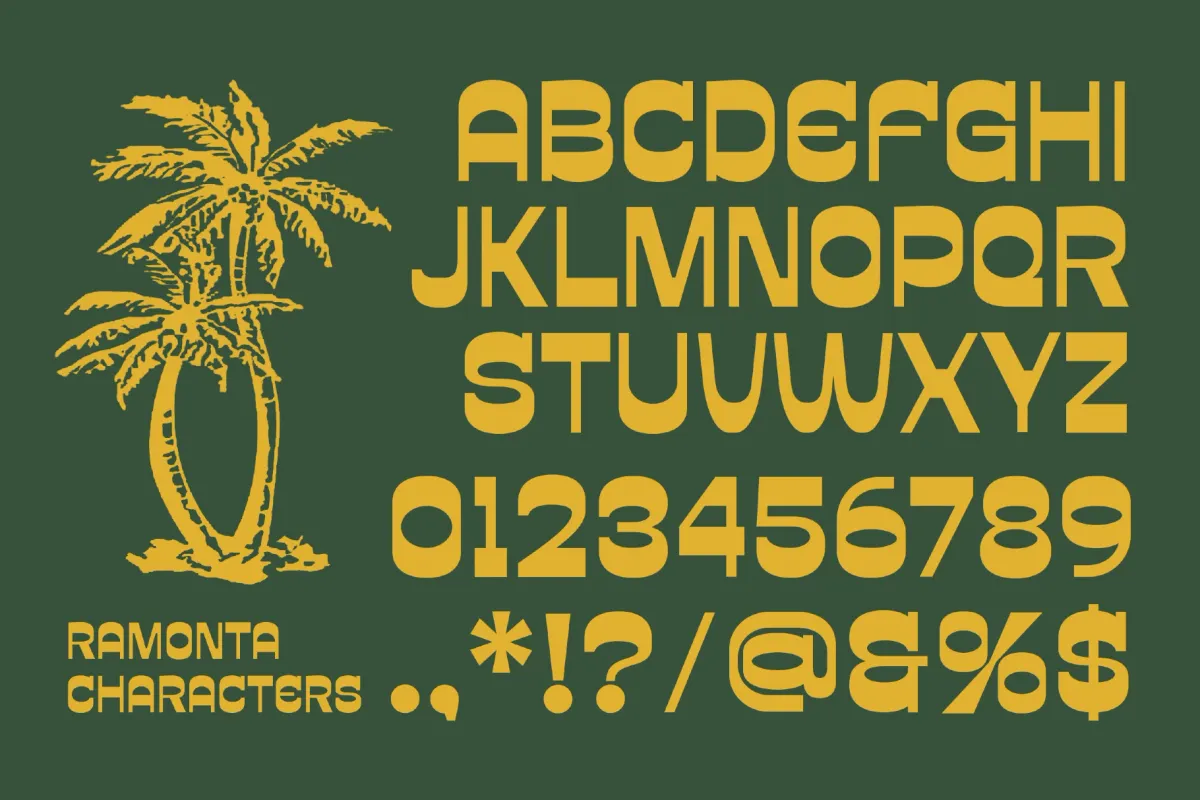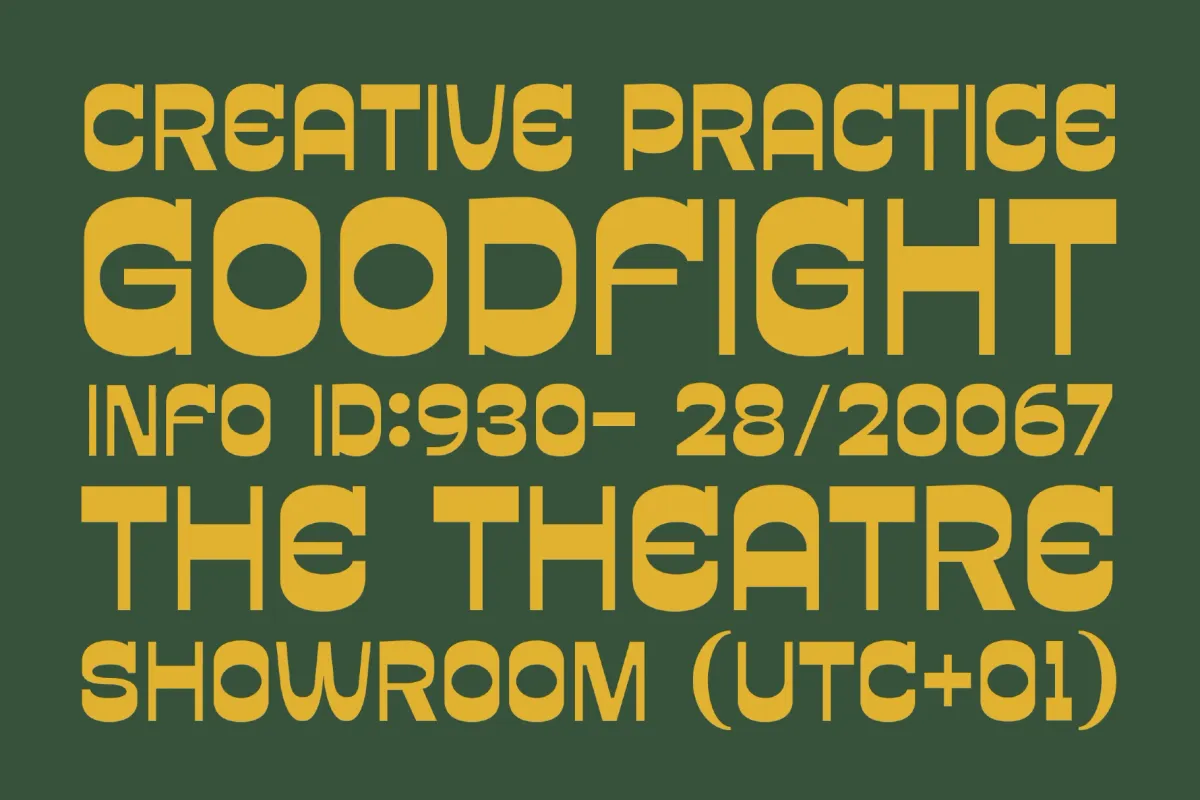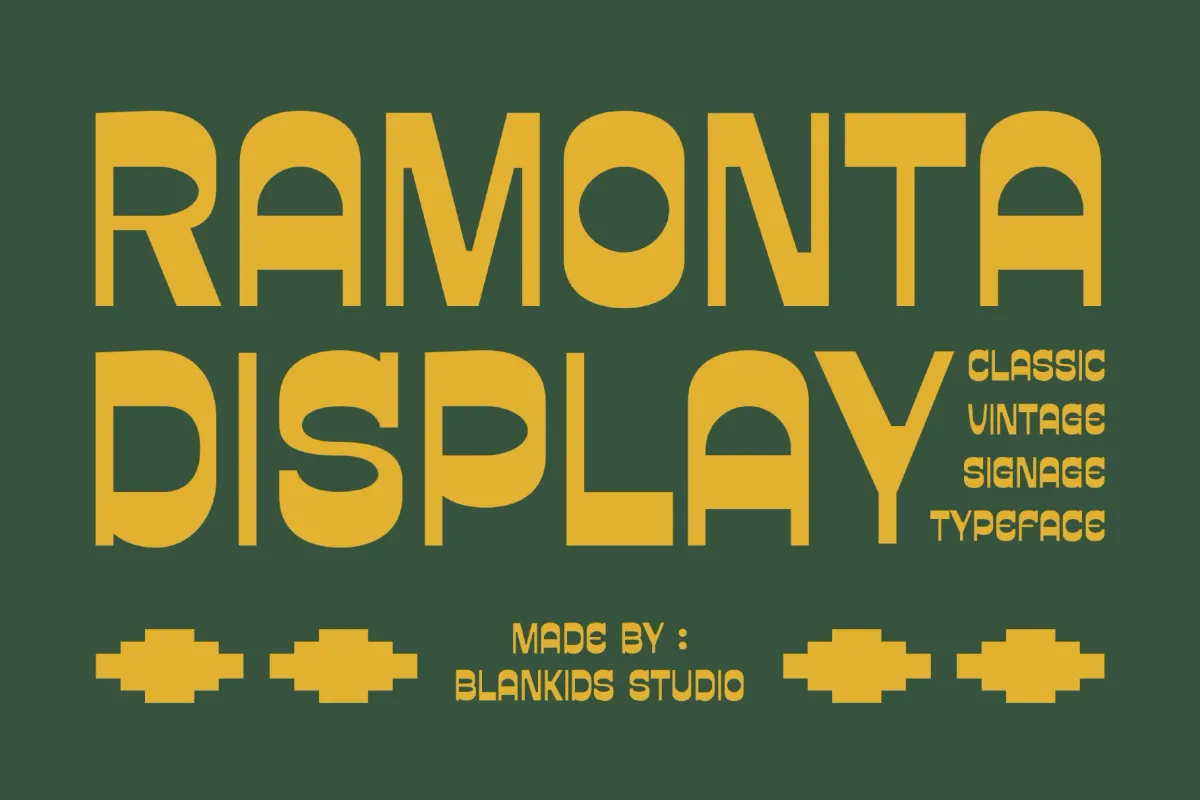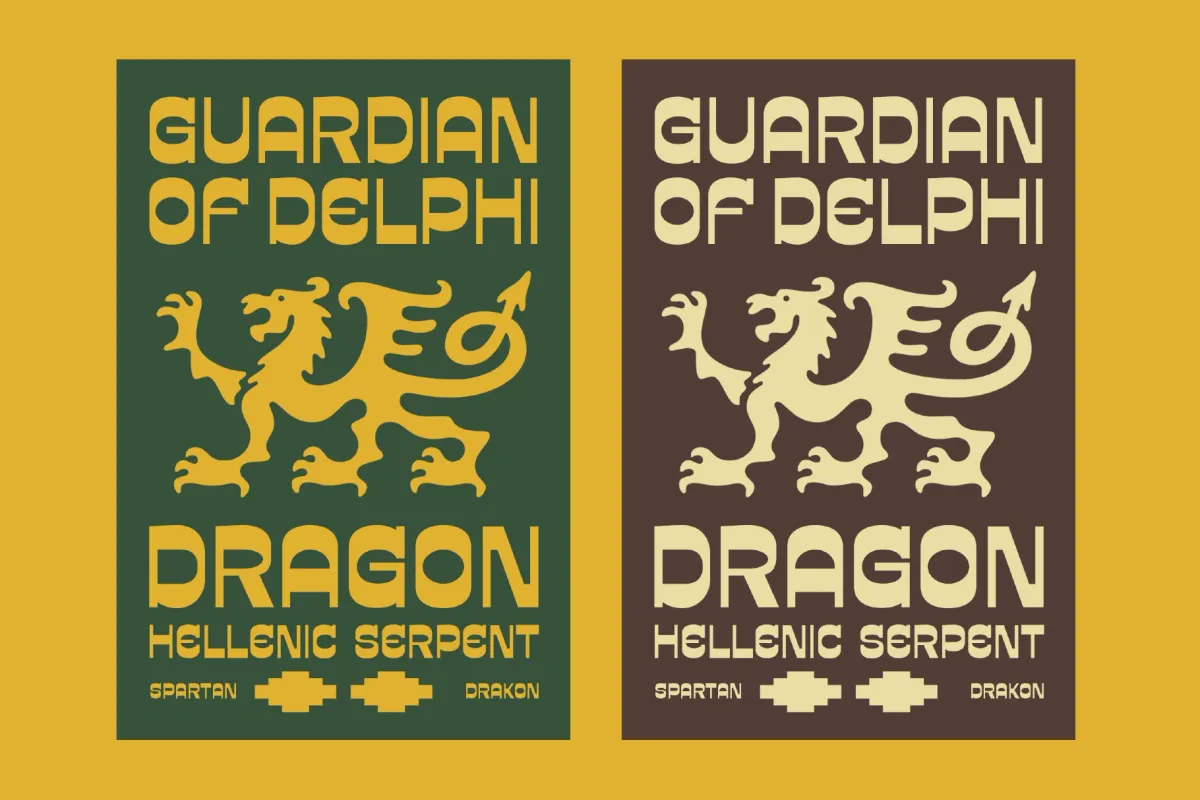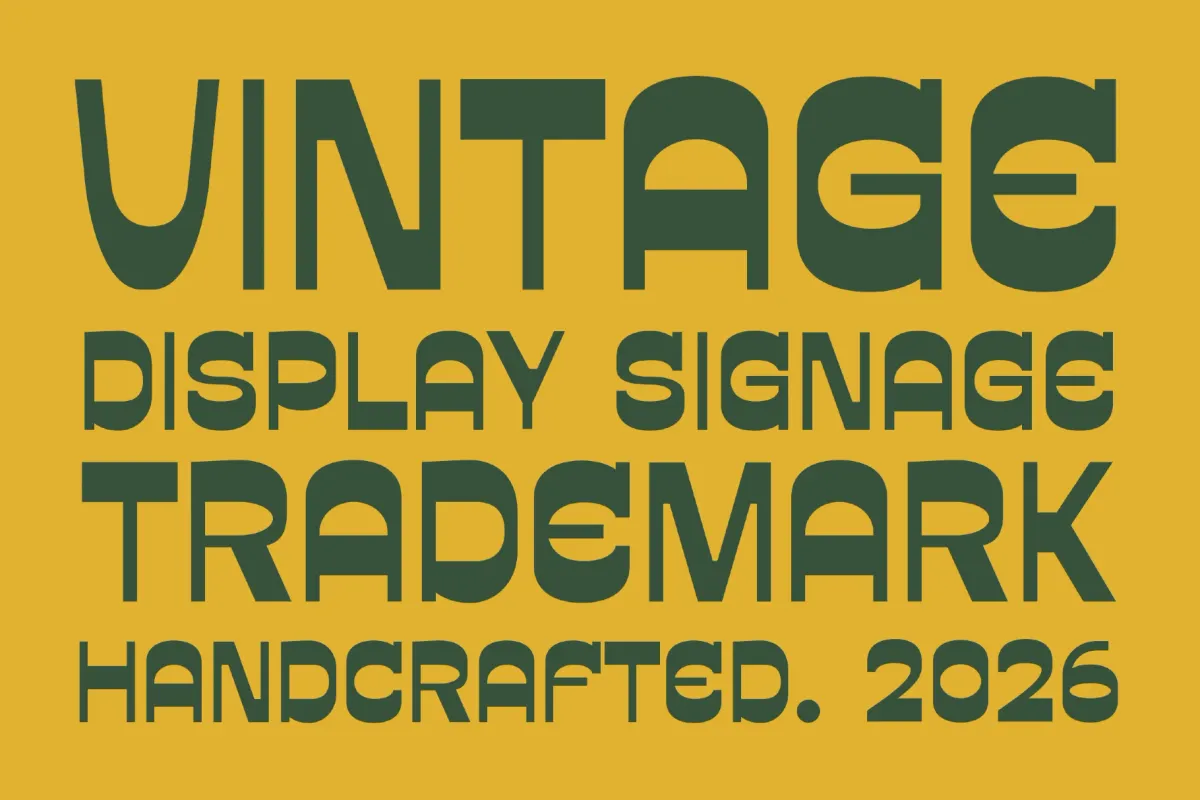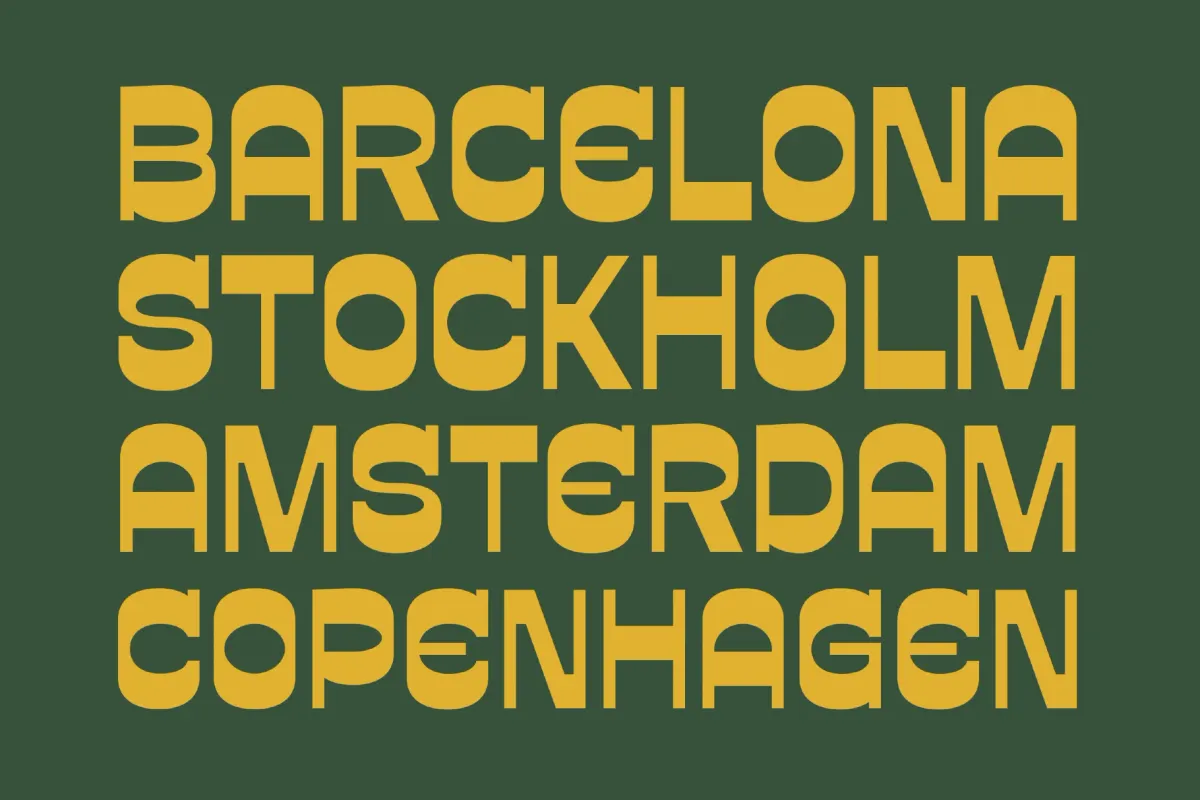
Ramonta - Vintage Signage Font
Ramonta is a vintage display typeface built from tall, tightly geometric letterforms with rounded corners — the kind of confident, chunky lettering you'd find painted across a mid-century storefront or diner sign. A companion lowercase set sits at a shorter cap-height alongside the capitals, giving headlines a mixed-case option without breaking the sign-painted rhythm.
Use it for vintage signage, retro logos and badges, barbershop and restaurant branding, apparel graphics, motorcycle and automotive lettering, album artwork, posters, and packaging.